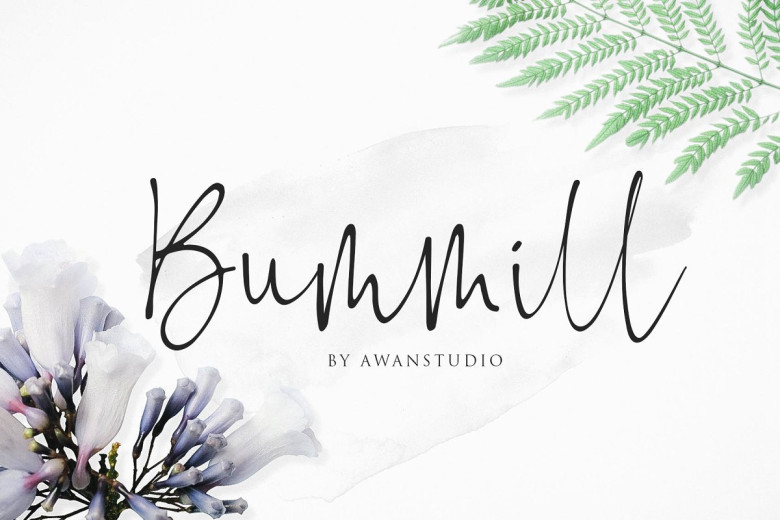
Bummill Signature Font
This is a simple script typeface which is simple. With perfect natural handwriting style for many different projects. Introducing Bummill Font. It’s designed and shared by awan studio. Bummill allows you to create stunning and easy hand-lettering in an instant. Ideal for the logo, quotes, wedding, product label/packaging, fashion, letter, advertising, invitation, poster, merchandise, greeting cards, etc. This font came along with lots of ligatures option for more natural looks.